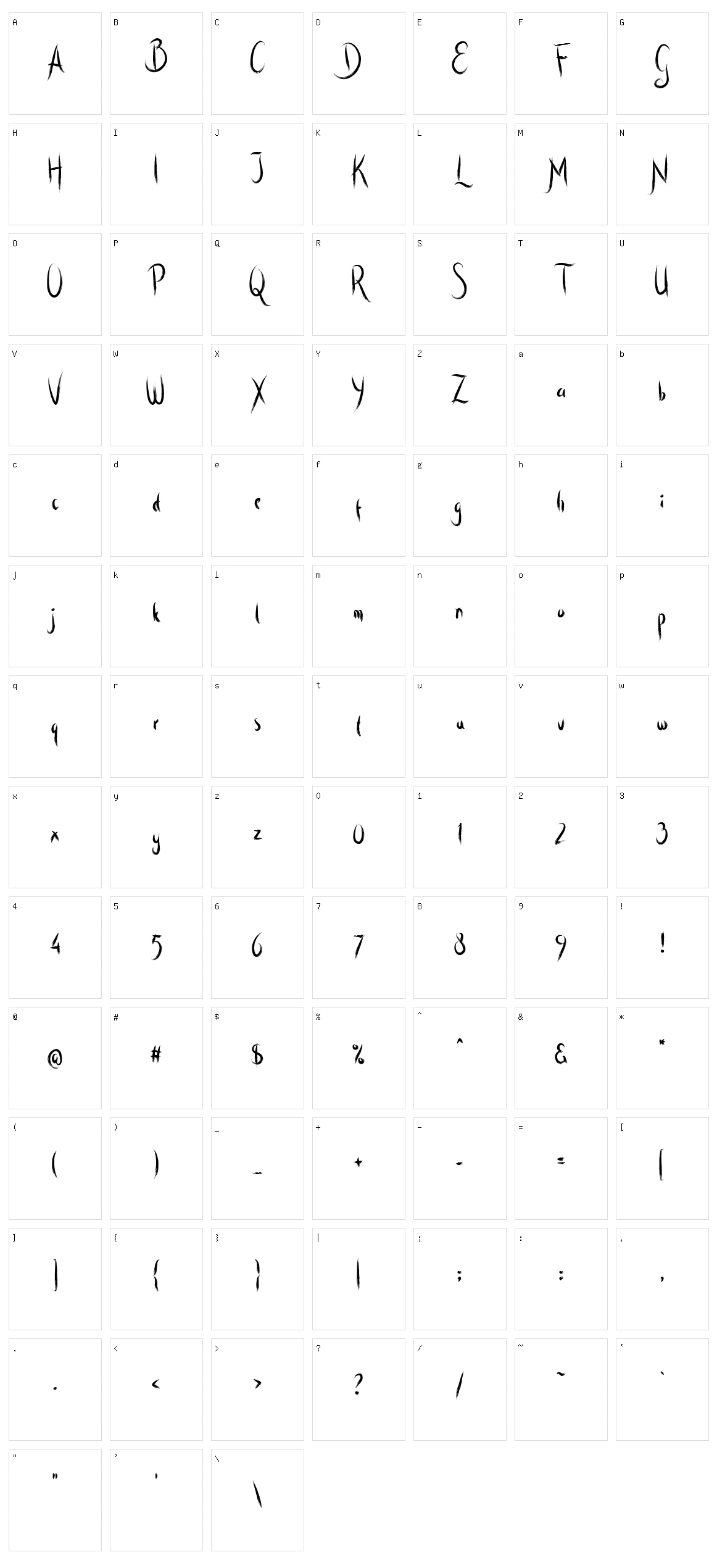
The free font Von Halent is carefully designed by Royaltype, showcasing a thoughtful balance of creativity and usability and falls under the Horror font style. When you download the ZIP file, it contains only 413.93 KB of font files, making it lightweight and quick to download. Please review the license details below to understand permitted usage and distribution rights. If license information is not available, we recommend using this font for personal projects only or contacting the author directly for commercial usage permissions.